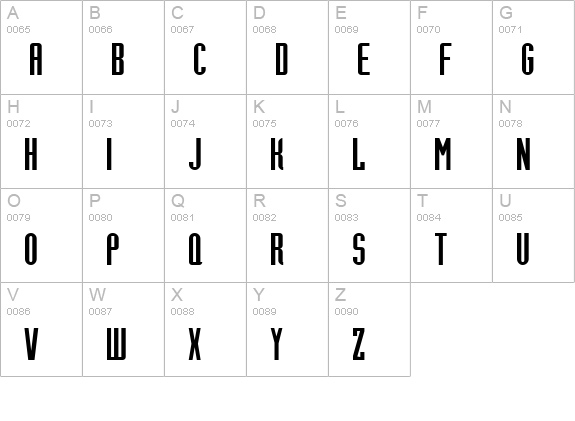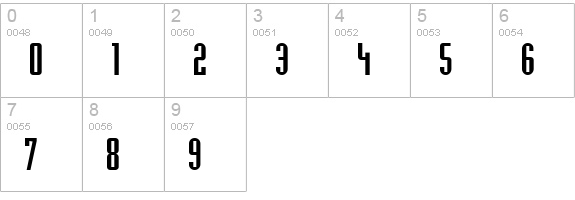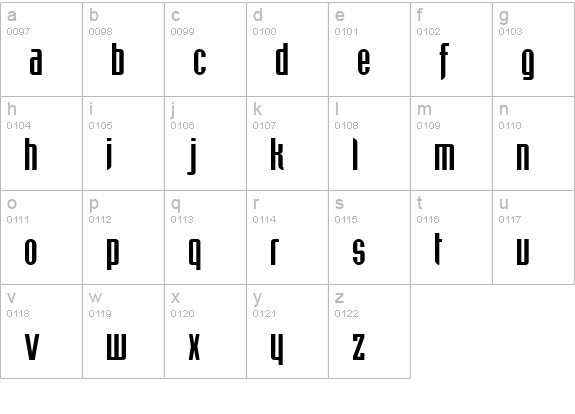
Introducing Trust This One, a timeless and versatile font that exudes a sense of trustworthiness and reliability. With its clean lines and classic appeal, this font is perfect for a wide range of design projects, from professional corporate branding to elegant invitations. Trust This One is the epitome of sophistication, combining modern simplicity with a touch of elegance. Its balanced and well-proportioned characters effortlessly capture attention without overpowering the overall design. Whether used in headlines or body text, this font delivers a clear and legible message to its audience, making it an excellent choice for both digital and print media. One of the most remarkable features of Trust This One is its versatility. It effortlessly adapts to various design styles and contexts, making it suitable for a myriad of applications. From business cards to posters, from websites to packaging, this font seamlessly integrates into any project, adding a touch of professionalism and sophistication. But what truly sets Trust This One apart is its availability as a free font. Yes, you read that right – Trust This One is freely available to download at FontsMarket.com. We believe that great design should be accessible to everyone, and by offering this font for free, we aim to empower designers and creatives to bring their visions to life without any limitations. So, why wait? Trust This One font is just a click away, ready to enhance your designs with its timeless elegance and versatility. Download it now from FontsMarket.com and unleash your creativity like never before. Trust us, you won't be disappointed.